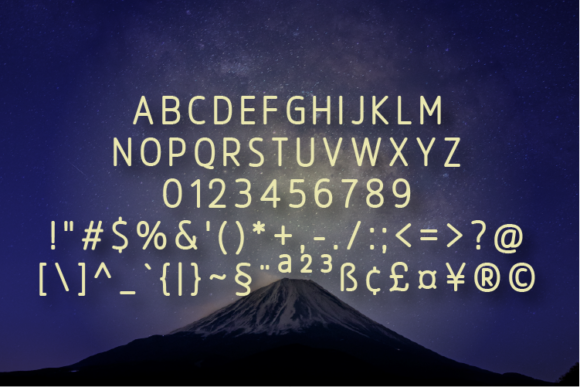
Introduction to Qolam Bold Font Font
Fonts play a crucial role in design, and the Qolam Bold Font font is a typeface that brings both character and versatility to any project. Whether you’re working on a branding project, a website, or a print design, the Qolam Bold Font font offers a unique style that can elevate your work.
Qolam Bold is a gorgeous Swedish-style sans serif font that is extremely versatile and timeless.
Qolam can be used in many contexts and design environments It’s perfect for invitations, magazines, websites, logos, and more.
Key Features of Qolam Bold Font Font
• βœ… High-quality typeface designed for professional use
• βœ… Includes a wide range of glyphs and characters
• βœ… Ideal for logos, branding, websites, and print
Why Choose Qolam Bold Font Font?
The Qolam Bold Font font is more than just a typeface – it’s a design tool that helps you communicate your message with style and clarity. Its unique character set and versatile design make it suitable for a wide range of applications, from elegant invitations to bold headlines.
With its carefully crafted letterforms and balanced proportions, the Qolam Bold Font font ensures readability and visual appeal across all mediums.
What makes Qolam Bold Font font special?
The Qolam Bold Font font stands out with its unique design, exceptional readability, and versatility across various design applications.